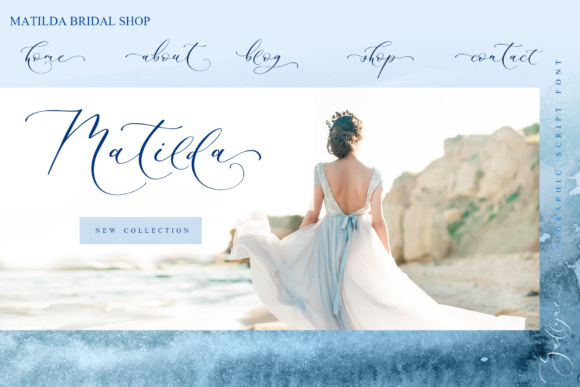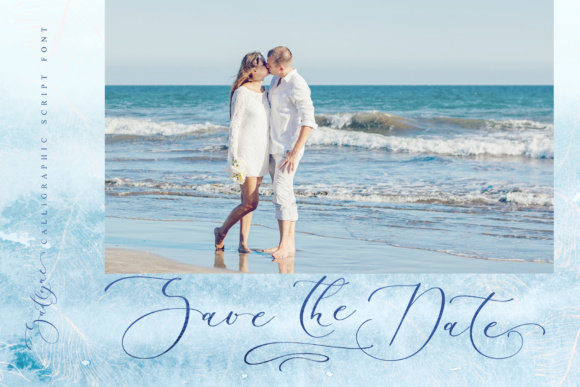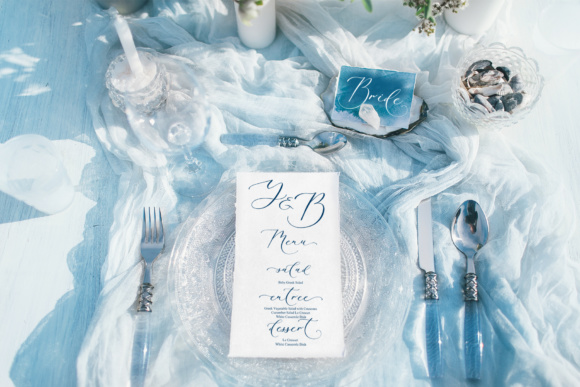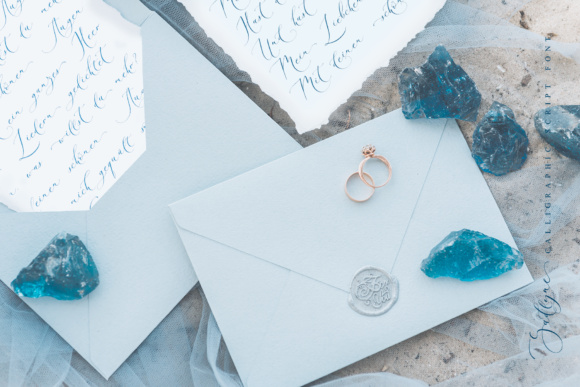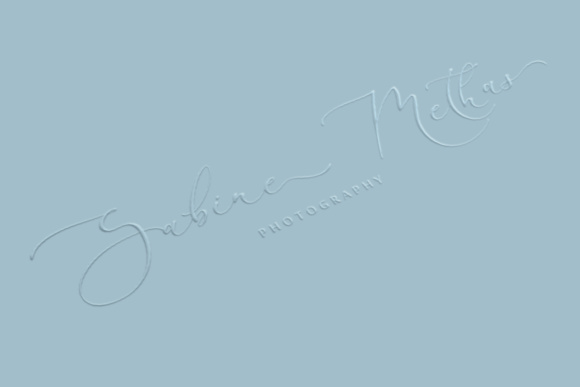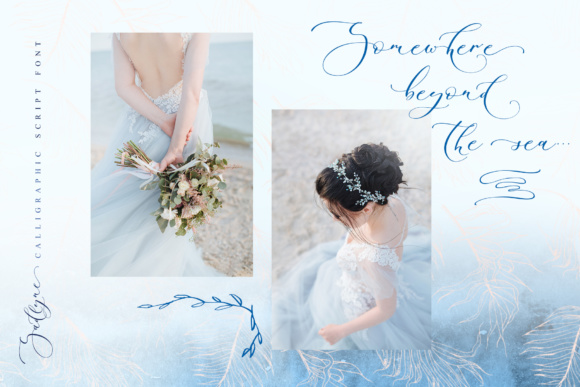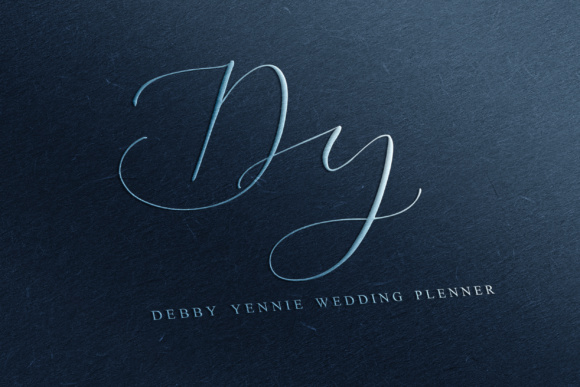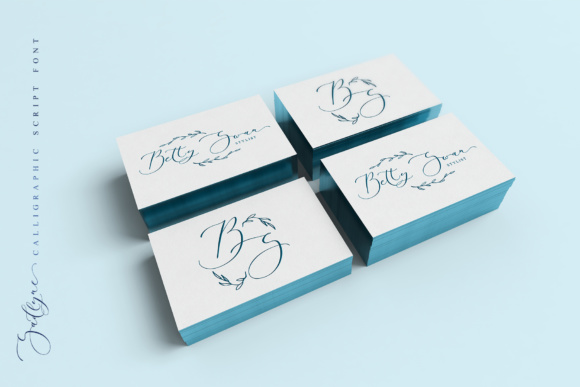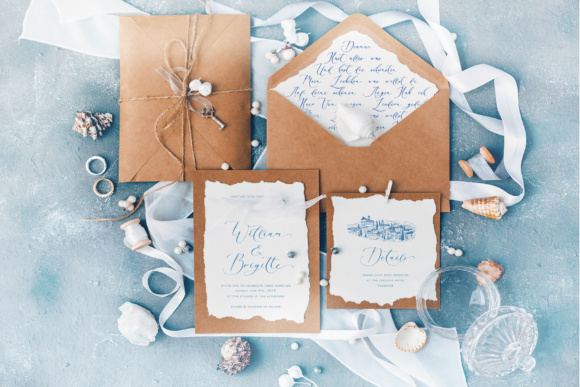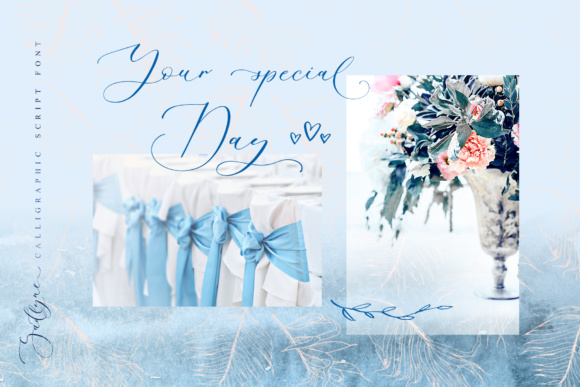
Sadlyne Font
About Sadlyne Font
Sadlyne is a handwritten, elegant, calligraphic typeface.
Sadlyne Symbols is a font with over 36 hand-drawn elements, illustrations, and swashes and can help to make your design more original. Combine and arrange swashes and illustrations to create your own designs and make borders, frames, dividers, logos and more. A different symbol is assigned to every uppercase and lowercase character so you do not need graphics software, just simply type the letter you need.